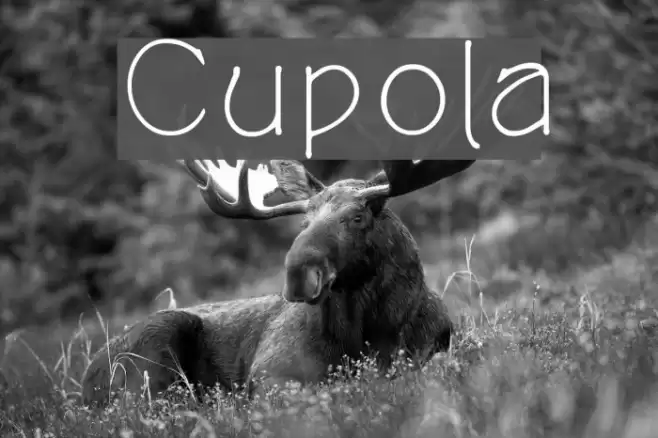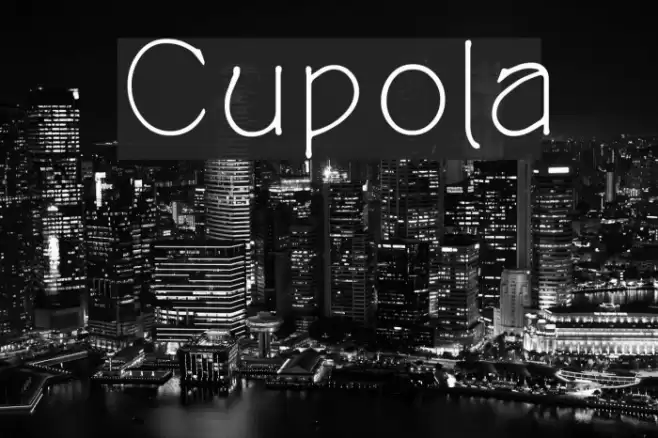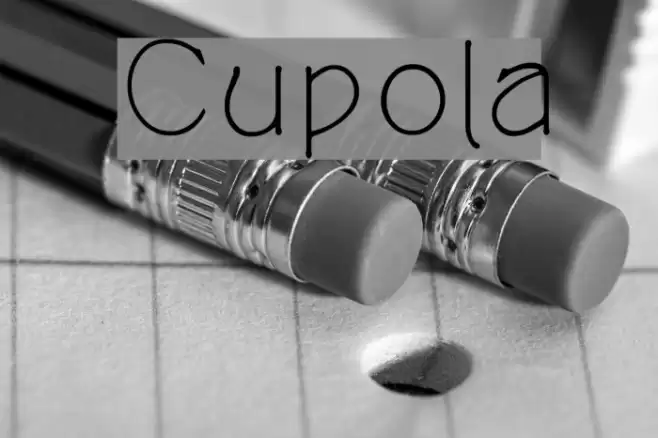
Cupola Font
Cupola Description
This font features a playful and whimsical design with a handwritten style. The characters are slightly irregular, giving it a casual and friendly appearance. The uppercase letters are tall and narrow, while the lowercase letters maintain a consistent flow with rounded edges. The numbers and special characters follow the same playful aesthetic, making the font versatile for various creative projects. Its unique style is suitable for designs that require a personal touch, such as invitations, greeting cards, or children's book covers. The font's overall appearance is both approachable and distinctive, making it stand out in any design context.
A playful, handwritten-style font with a whimsical and friendly appearance from Handwritten fonts.
- Proposed Projects: Ideal for invitations, greeting cards, children's books, and creative branding.
- Overall Style: Whimsical